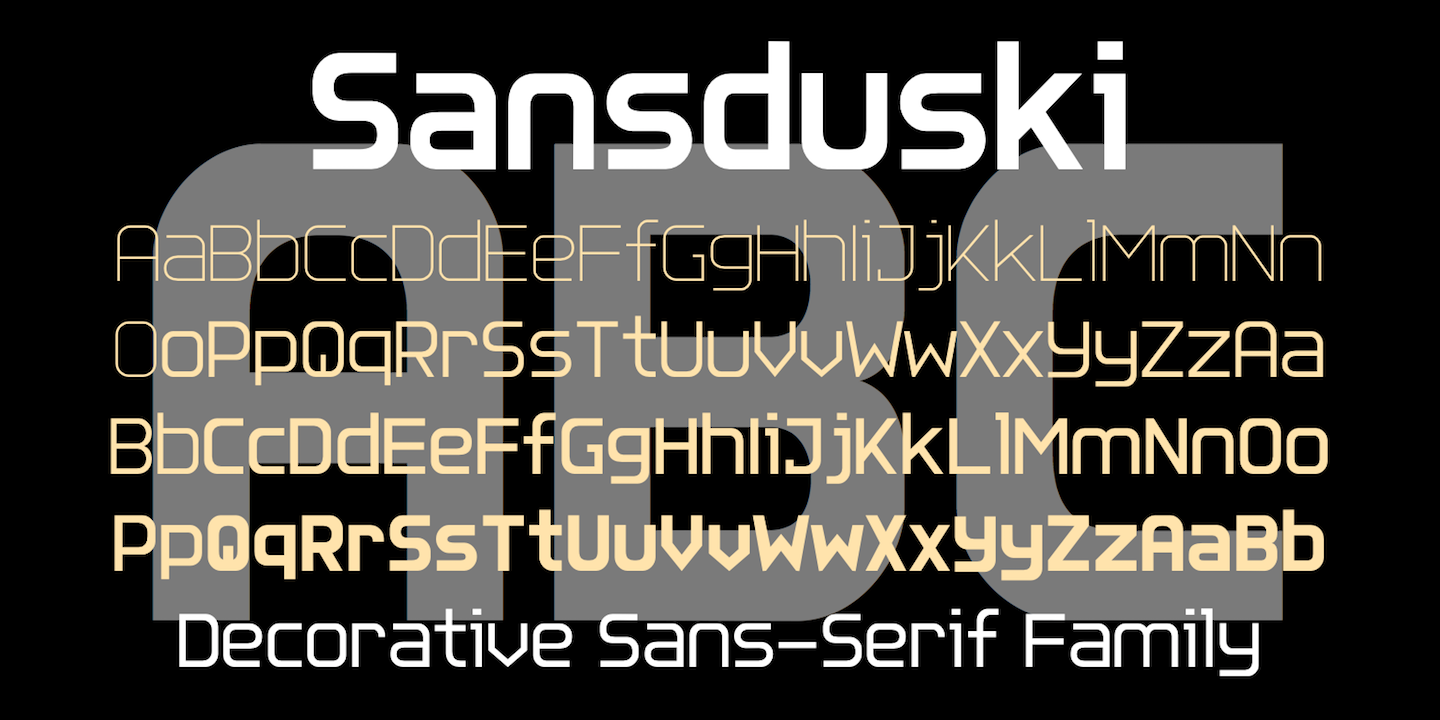
Sansduski Font is perfect for clean design projects including modern corporate branding, tech startup companies, contemporary design studios, minimalist architecture firms, progressive business presentations, clean lifestyle brands, modern digital agencies, and sophisticated professional campaigns. This streamlined typeface works perfectly for software development companies, modern consulting firms, clean beauty brands, contemporary art galleries, and projects that celebrate simplicity, clarity, and forward-thinking design philosophy.
What makes Sansduski Font exciting is its refined contemporary character that perfectly captures the essence of modern minimalism and professional sophistication. The font features clean letterforms with geometric precision that reflects the clarity and efficiency valued in contemporary business communication. Its streamlined design elements embody the spirit of modern professionalism and aesthetic reduction, making it perfect for projects that need to convey clarity, reliability, and connection to contemporary design trends. The carefully crafted minimalist proportions create an atmosphere of professional sophistication and modern elegance.
Sansduski Font comes in multiple family variations including clean, minimal, professional, and contemporary styles. Each weight maintains the distinctive modern character while offering different levels of professional intensity and minimalist presence. The font family includes contemporary alternates, clean ligatures, and professional variations that provide designers with comprehensive options for creating truly sophisticated and modernly authentic typographic compositions that celebrate professional excellence.
Whether you're designing corporate branding, creating professional marketing materials, or developing contemporary promotional graphics, Sansduski Font Free Download provides the perfect typographic foundation for projects that celebrate modern excellence and professional sophistication. This remarkable typeface transforms ordinary text into compelling expressions of business wisdom and contemporary elegance. Download this clean font today and modernize your design projects with the professional authenticity and contemporary refinement that captures the essential spirit of modern business communication and minimalist design excellence.